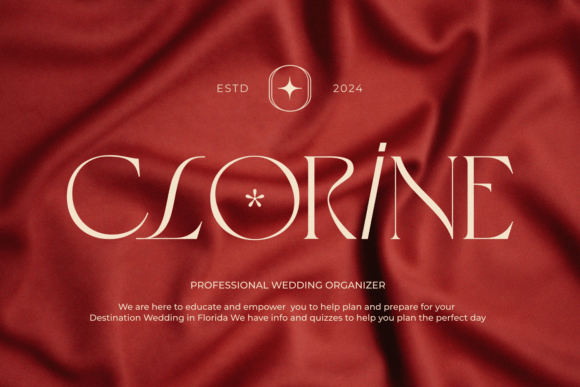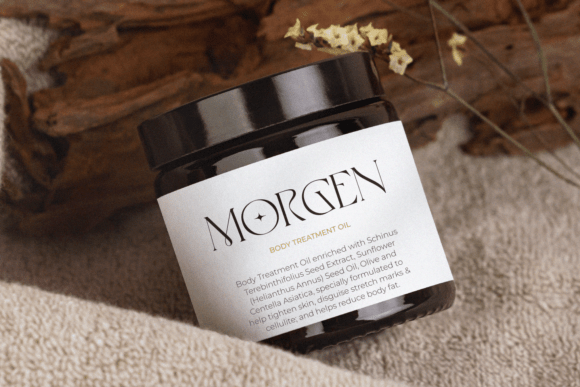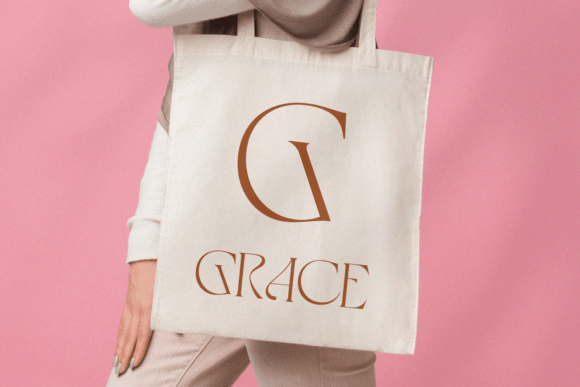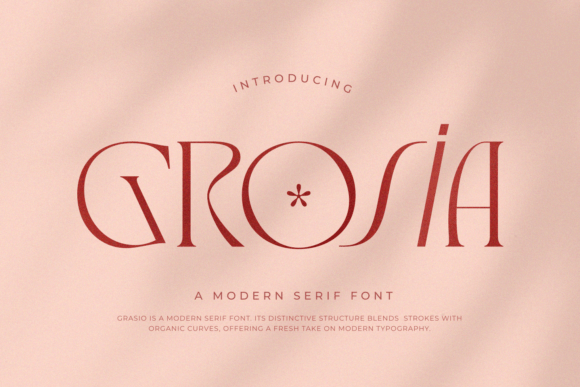
Introduction to Grosia Font
Presenting Grosia, an enchantingly feminine serif font, exquisitely crafted to add a dash of romance and charm to your designs.
Perfect for a myriad of applications, from digital design and presentations to handmade crafts and delightful greeting cards, Grosia’s allure captivates and enchants, swiftly becoming an indispensable element in your creative tool kit Its alluring aesthetics wonderfully embellish your creations, ensuring they make a memorable mark regardless of the occasion.
Key Features of Grosia Font